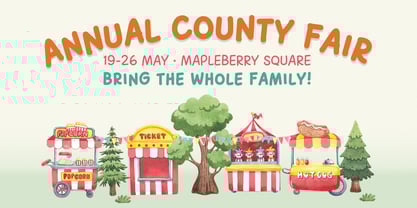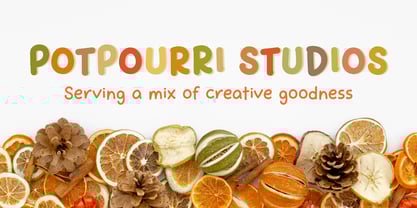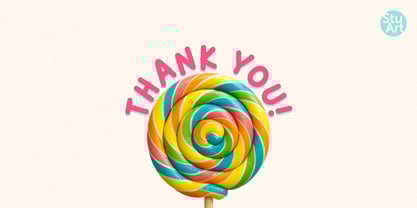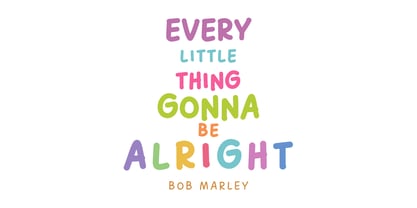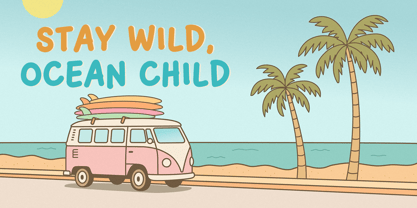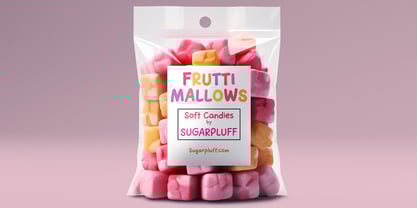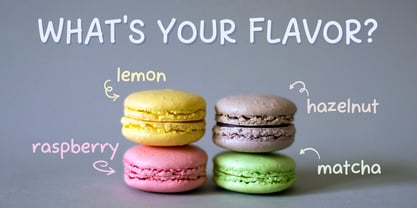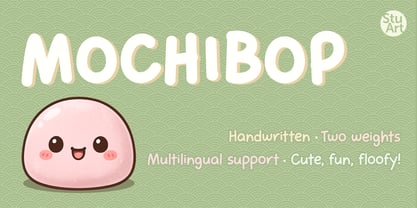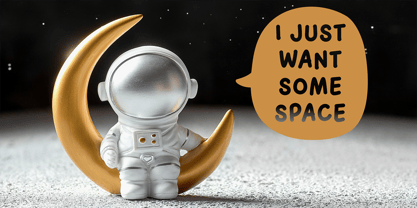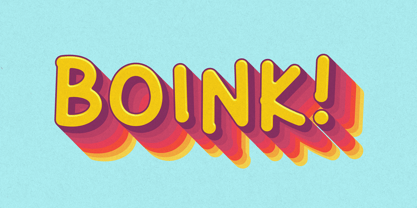
Mochibop
The Mochibop Font Family was designed by Andrea Stuart and published by StuArt. Mochibop contains 2 styles and family package options. More about this family
Say hello to Mochibop—a plump, playful handwritten font that’s soft like mochi and full of bop. Designed to bring lighthearted energy to your designs, Mochibop mixes bubbly curves with clean legibility, making it as functional as it is fun. With thick, rounded strokes and bouncy letterforms, Mochibop brings cozy vibes and bubbly energy to every project it touches. It’s like handwriting wrapped in a marshmallow!
* Ultra-rounded, soft strokes that feel friendly and fun
* Natural bounce and rhythm that feels hand-drawn but polished
* Ultra legible even in small sizes
* Playful rhythm and flow, perfect for digital or print
* Bold enough for headers, sweet enough for notes and stickers
* Multilingual support
* Children’s books, educational and activity sheets, flashcards
* T-shirt & tote bag designs, product packaging, logo concepts
* Social media graphics with a friendly, happy vibe
* Printable sticker packs, labels & journaling goodies
* Branding for sweet treats, toy shops, or kawaii merch
* Greeting cards, party invites, and anything that needs a little pop
* Anything that deserves a soft, joyful, hand-drawn flair
Mochibop is more than just a font—it’s a vibe. Fun, flexible, and packed with personality, it’s your go-to for designs that smile back.
StuArt is the passion project of Andrea Stuart, where pen meets pixel. It began with a simple appreciation for the curves of an ‘s’ and evolved into a lifelong love for the art of letters. She was especially drawn to the ones that felt human—organic, relaxed, and full of personality. When she discovered the tools to create her own, she began turning her signature style into digital type, and StuArt was born—a foundry dedicated to capturing the warmth of a handwritten note without the ink stains. It's personality, digitized.